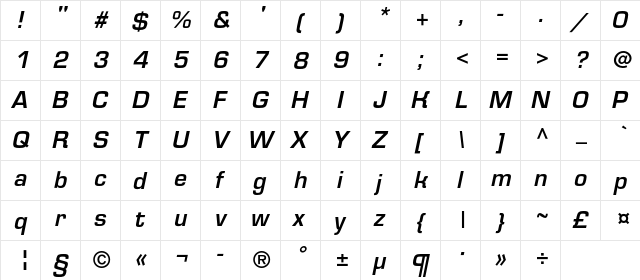
EurofontMediumC Italic
Design Context for EurofontMediumC Typeface
EurofontMediumC offers clean, dependable letterforms without strong stylistic allegiance, making it a practical choice for designers who need flexibility. Its italic angle brings a sense of urgency and motion to the letterforms.
Pro Tip: Try EurofontMediumC for annotation and caption copy alongside an upright companion — the contrast in angle creates a dynamic but ordered typographic system.